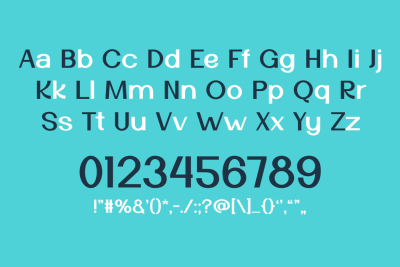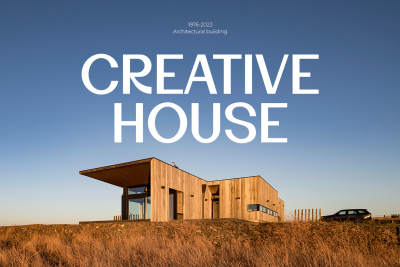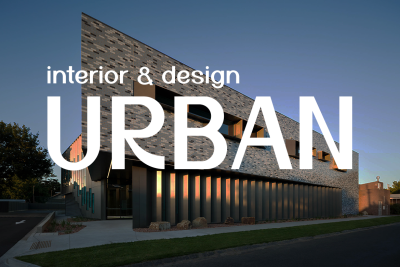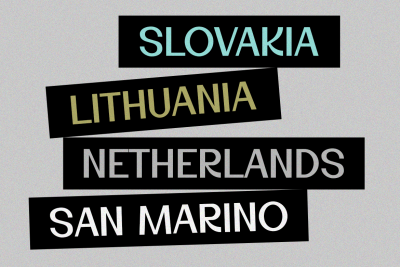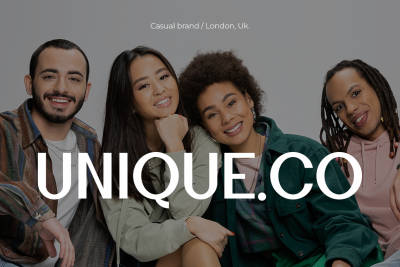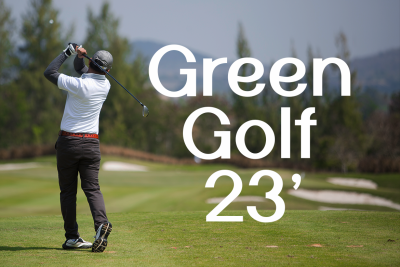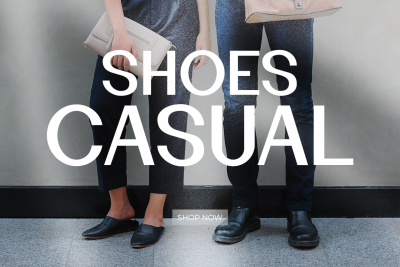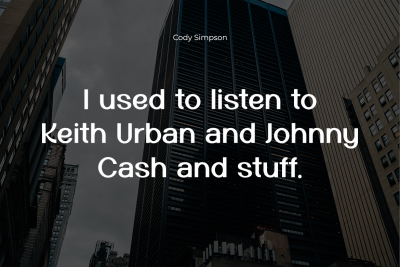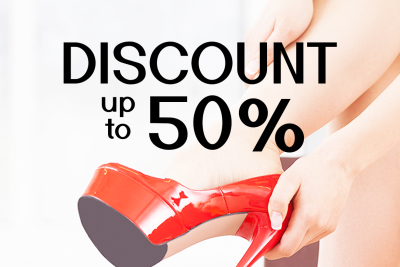
Instagram Font Stomping is a bold, playful, and modern typeface designed to make a statement. With its rounded edges and sharp lines, this font captures attention instantly and exudes energy. Moreover, it is perfect for digital platforms, especially social media, as it combines clarity with a trendy personality. As a result, your message stands out in crowded feeds. Additionally, the font features clean geometric forms and a retro touch, aligning seamlessly with current design trends. Thus, itโs versatile for both casual and professional use.
The balanced spacing and legible structure make it ideal for headlines, captions, and logos. Furthermore, whether you are amplifying a personal brand or designing an advertisement, this font excels. It adapts easily to diverse styles, from bold and vibrant to minimalistic and sleek. Ultimately, Instagram Font Stomping conveys confidence and creativity, making it perfect for designers who want to leave a lasting impression.
Instagram Font Stomping Who Should Use This Font?
Instagram Font Stomping is perfect for creatives, influencers, and marketers who want their content to pop on social media. Digital content creators can elevate Instagram stories, posts, or reels with a professional yet fun touch. Graphic designers can use it for dynamic projects like posters, banners, or branding materials, wedding quotes, cover albums, business cards, postcards, and more.
Small businesses and startups can create memorable logos or promotional materials that match modern aesthetics. Social media managers will find it useful for engaging ads and posts that resonate with younger audiences. Bloggers, YouTubers, and personal brand builders can also use this font to communicate a distinctive identity.
Whether promoting a lifestyle product, designing a playful logo, or enhancing social media presence, Instagram Font Stomping delivers striking results. Its versatility suits industries like fashion, technology, entertainment, and wellness. This makes it a must-have for anyone who values high-quality, modern typography.